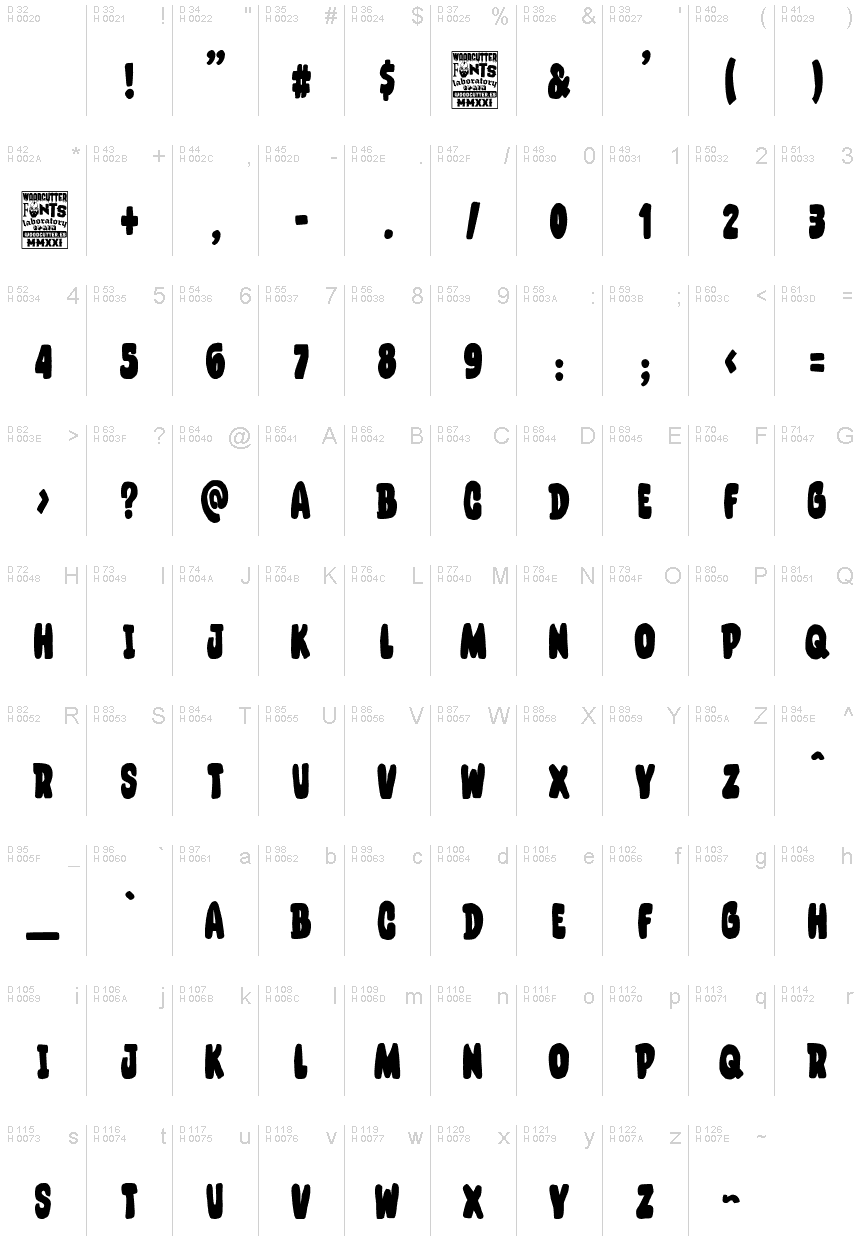
Bar Cantabria
Bar Cantabria, the latest creation by Woodcutter Manero, is a display typeface with a fun and playful cartoon style. Its bold weight and condensed width make it perfect for eye-catching headlines and titles. Bar Cantabria's unique design lends itself well to a variety of projects such as children's books, toy packaging, or even themed bars and restaurants. With its energetic vibe and distinct personality, this font is sure to make any project stand out from the crowd. Get ready to add some serious character to your next design with Bar Cantabria!